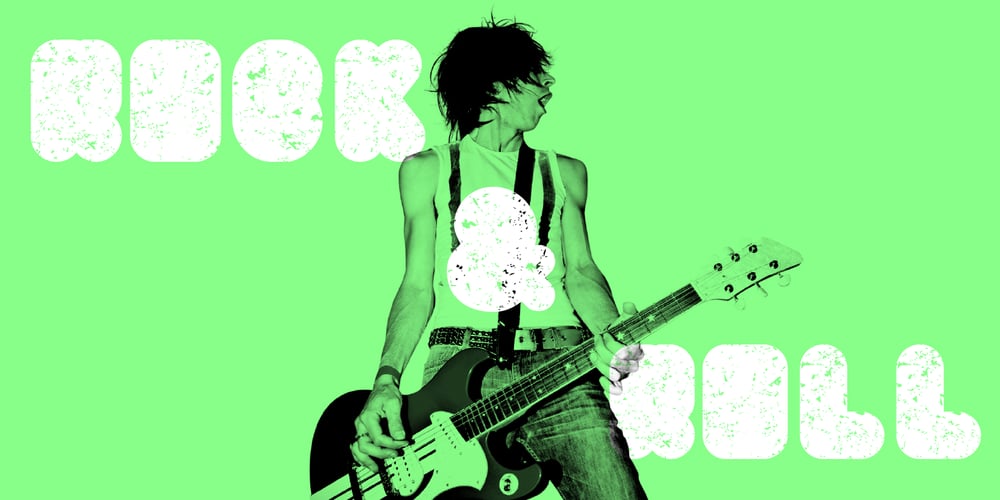
Yuko Font Family was designed by published by HyperFluro. Yuko contains 1 styles and family package options. Big, bold and with attitude to spare, no-one better get in the way of Yuko when it’s got something to say. Although it’s a gentle giant really, Yuko has a lot of opinions and it won’t go without being heard. Yuko is most effective when you need to say something loudly and with attitude to get people’s attention, especially if you’re competing for space.